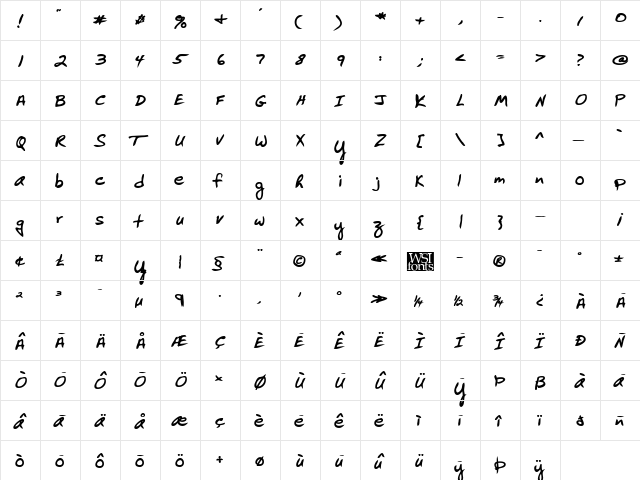
CormicksHand Bold
Design Context for CormicksHand Typeface
CormicksHand flows with the natural rhythm of handwritten lettering, making it ideal for designs that call for warmth and personal expression. The heavy weight commands attention and anchors typographic hierarchies.
Font Pairing: Combine CormicksHand with a simple geometric sans for maximum contrast — the tension between flowing curves and clean structure is a classic typographic pairing.
Pro Tip: Use CormicksHand for short runs of text — names, titles, or taglines. Extended body copy in script faces tires the eye quickly.